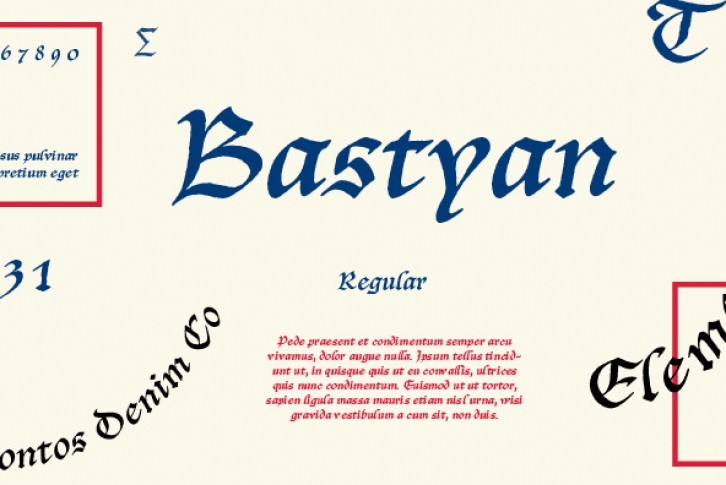
Bastyan is a hybrid Italic Blackletter. This typeface resembles Carolingian miniscule scripts and has a timelessness that evokes formality but defies specific historical categorization. It is available in an optional Opentype "Pro" version with CE language support, multiple styles of figures, ornaments & ligatures"